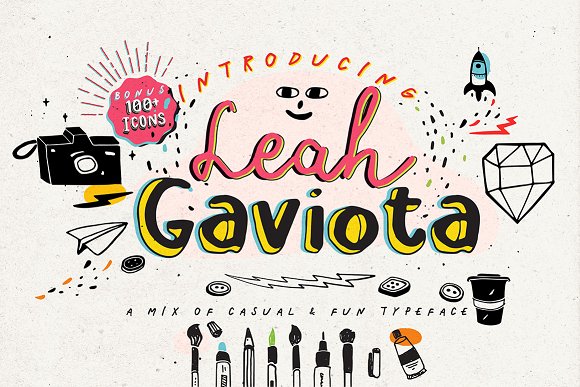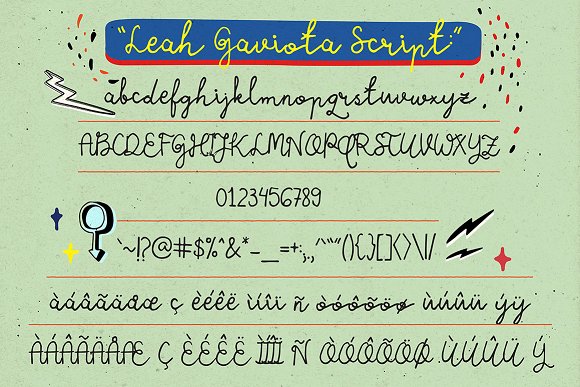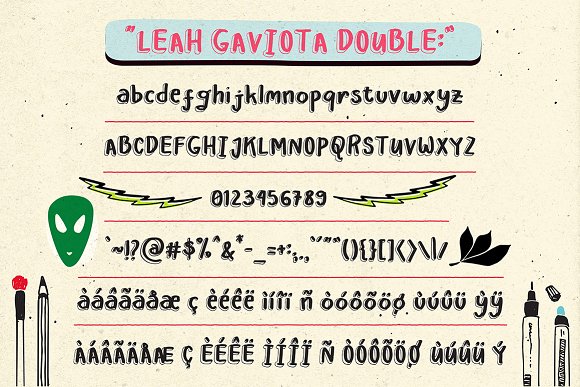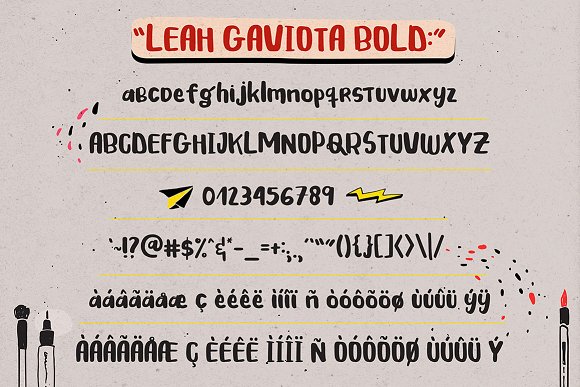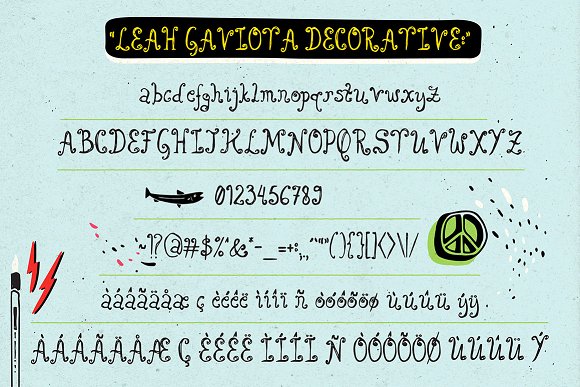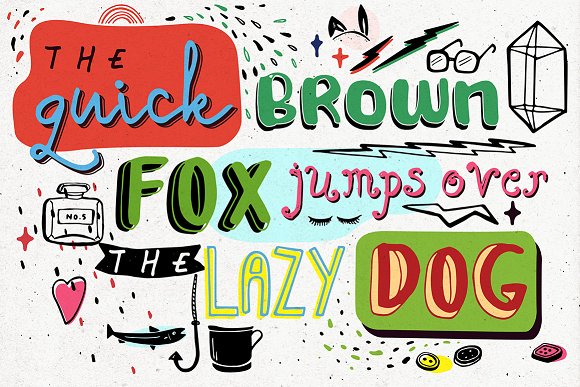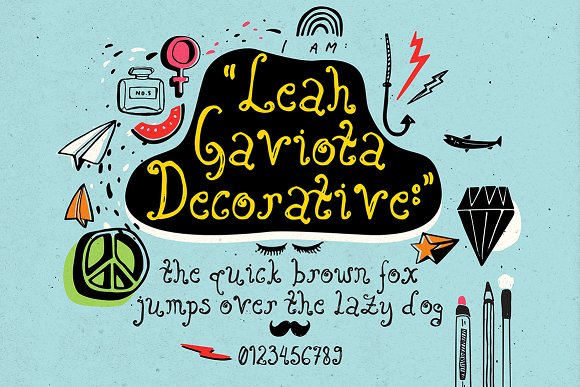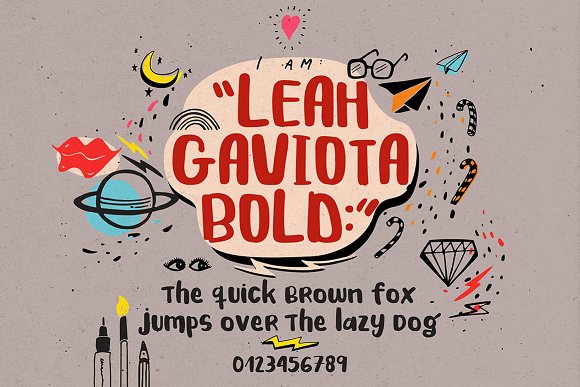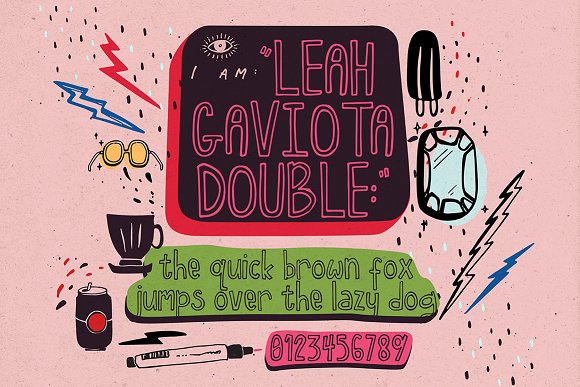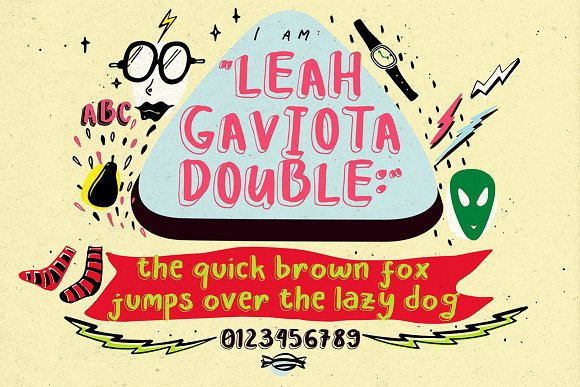
Leah Gaviota Script Font
About Leah Gaviota Script Font
Leah Gaiota is a family that mixes different styles. It includes a script, outline, serif & sans serif. They
All fonts in this family are tailored to work together perfectly, allowing maximum creativity for any project. This versatile, playful family can be used in many different types of projects.